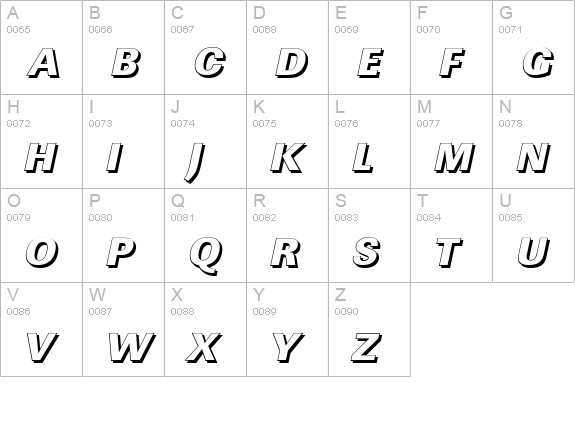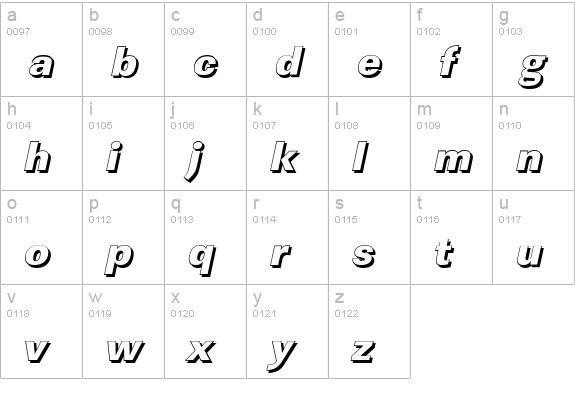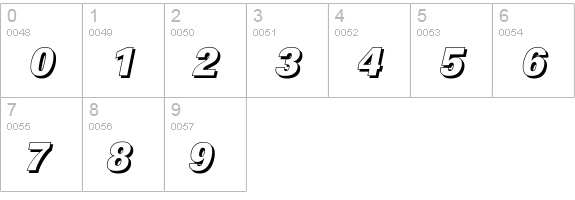
LinearSh-Heavy-Italic is a heavy, high-impact, italic variant in the LinearSh typeface family \xE2\x80\x94 well suited to high-impact headlines, posters, and display advertising.
LinearSh-Heavy-Italic is a sleek and modern font that exudes confidence and sophistication. Its heavy weight and italic style make it perfect for creating bold and eye-catching designs that demand attention. The clean lines and sharp angles of this font give it a contemporary look that is ideal for projects that require a touch of elegance. This versatile font is suitable for a wide range of design applications, from branding and advertising to editorial and packaging design. Whether you're looking to create striking headlines or add a touch of flair to your project, LinearSh-Heavy-Italic is sure to make a statement. And the best part? LinearSh-Heavy-Italic is available for free download at FontsMarket.com. Now you can elevate your designs with this sophisticated font without breaking the bank. Download LinearSh-Heavy-Italic today and unleash your creativity!